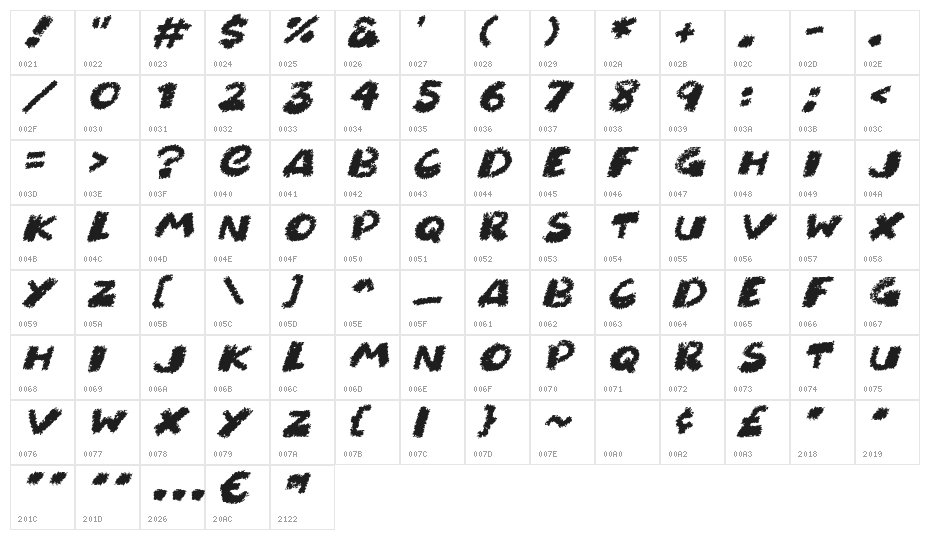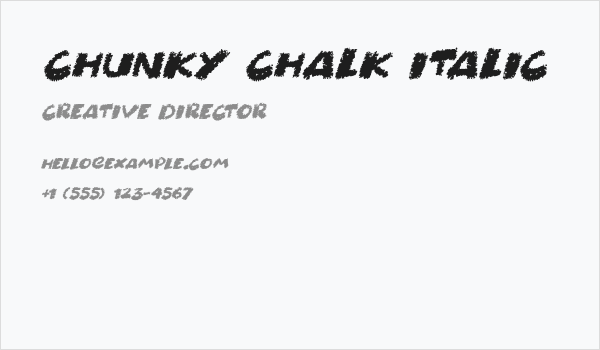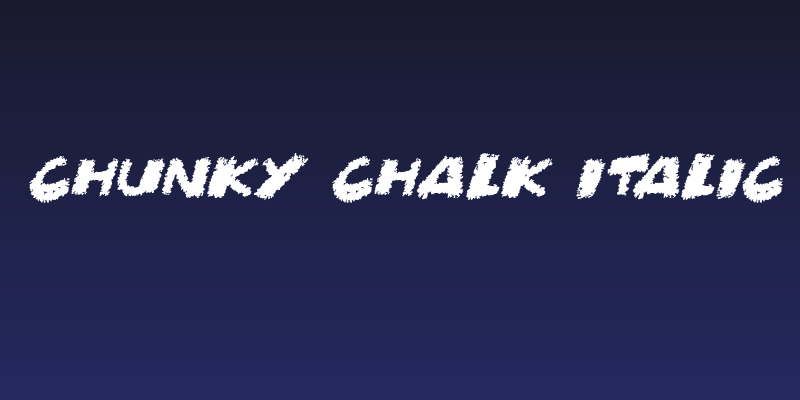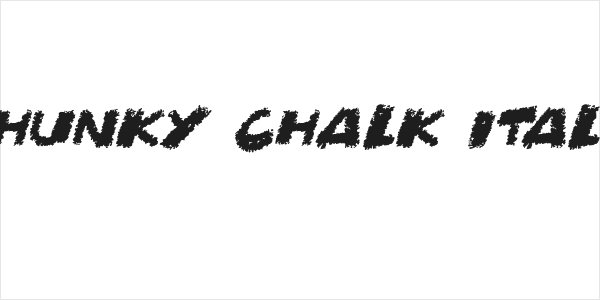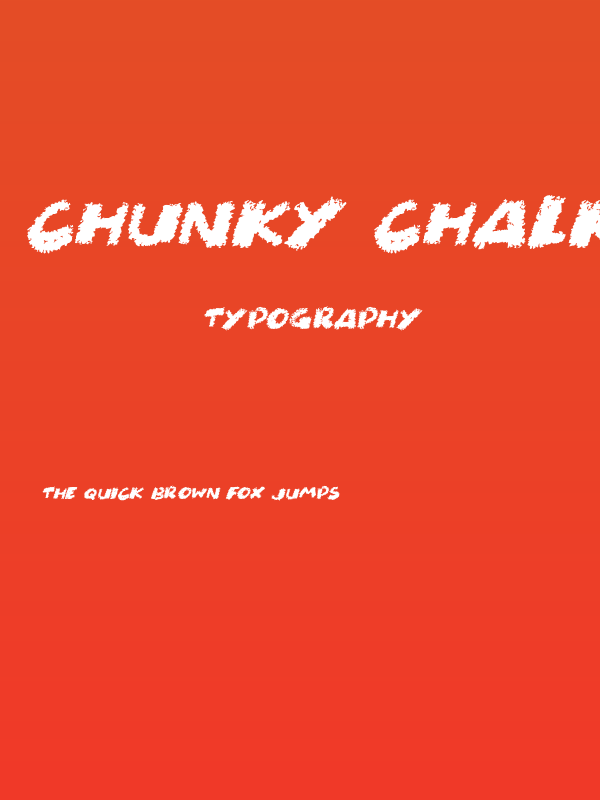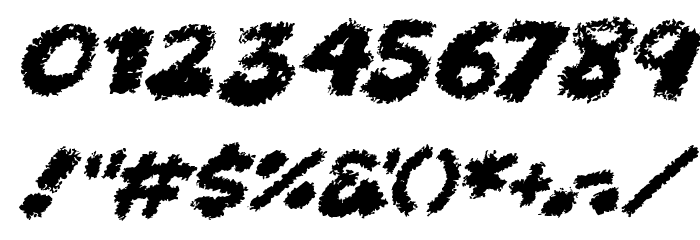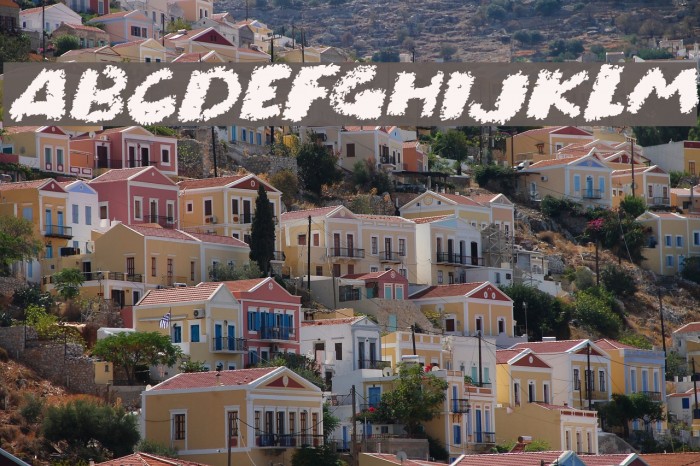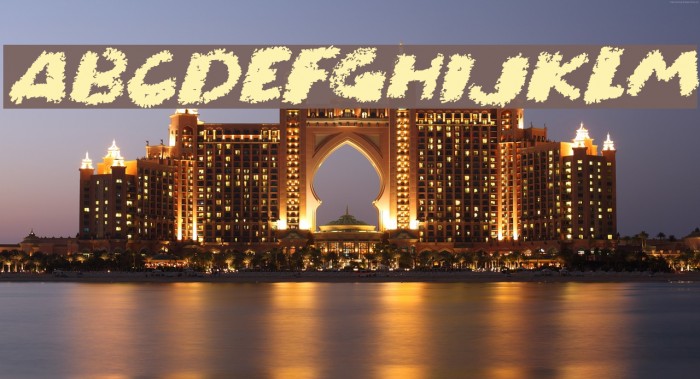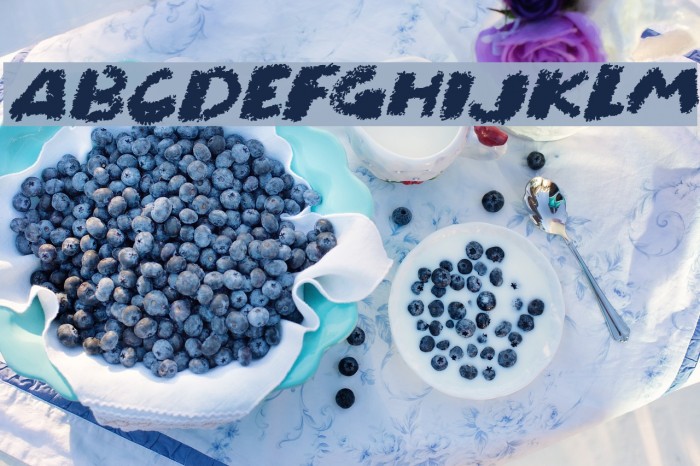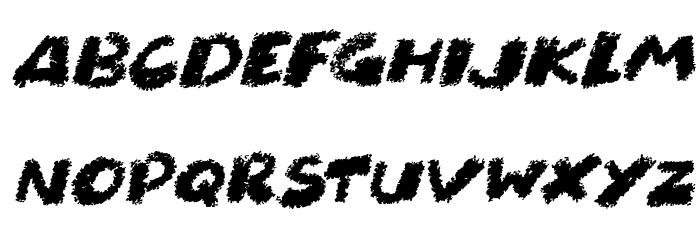
Chunky Chalk Italic Font
This font exudes a playful and bold character, reminiscent of chalk writing on a blackboard. The letters are thick and textured, giving an impression of being hand-drawn with a piece of chalk. The edges are rough and uneven, adding to its casual and informal style. Despite its boldness, the font maintains a certain charm and approachability, making it suitable for creative and fun projects. The italic slant adds a dynamic and energetic feel, enhancing its overall appeal. This font is perfect for designs that aim to capture attention and convey a sense of creativity and spontaneity.
| Overall Style | Playful, Creative, Informal |
| Proposed Projects | Ideal for children's book covers, playful posters, educational materials, and creative branding. |